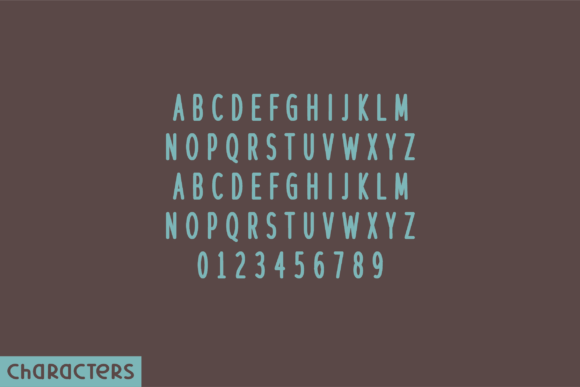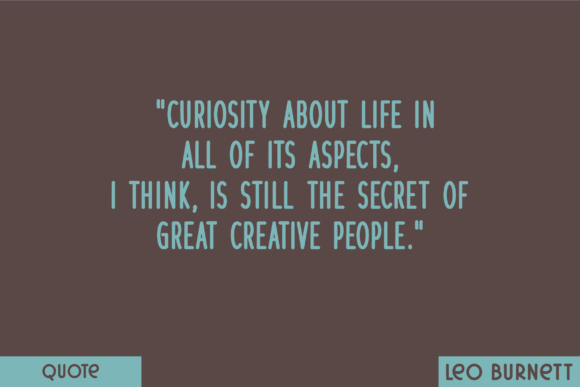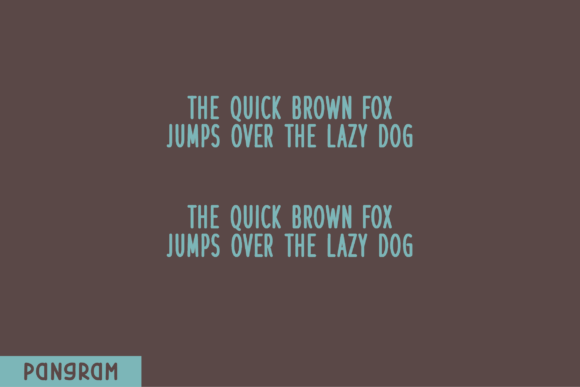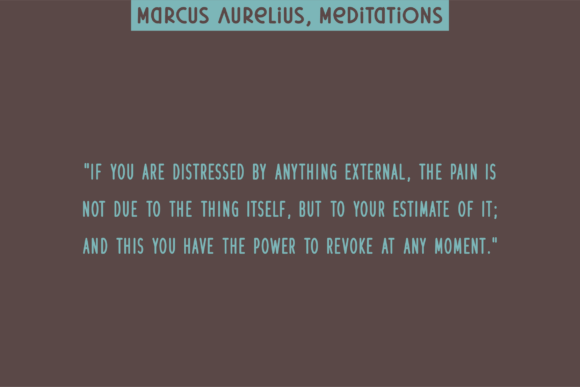
Introduction to Piraluna Font
As a designer, I’m sure you’ve had those moments when you’re brainstorming a creative project and the perfect font just seems to be missing. You know, that one font that makes your entire design pop, and elevates your message to a whole new level. For me, that moment came when I stumbled upon the Piraluna Font.
With its unique, handwritten style, the Piraluna Font is a game-changer for designers looking for a high-quality design resource. Its transparent background and natural, flowing lines make it perfect for quotes, notes, tees, and any product design. But what really sets it apart is its intricate details, carefully crafted to create a truly one-of-a-kind look.
Key Features of Piraluna Font
- Unique, stylish font with a transparent background, allowing for versatility in design applications.
- Features a large character set, including uppercase and lowercase letters, numbers, and special characters.
- Perfect for use in graphic design, web design, and digital art projects where a modern and elegant font is required.
Honest Review: Piraluna Font
I recently had the chance to work with the Piraluna Font, and I must say, it’s been a great addition to my design resource library. One thing that stands out is the unique design style, which lends itself perfectly to creative projects that need a touch of elegance.
- ✨ High-quality design: The Piraluna Font is meticulously crafted, with clean lines and a cohesive aesthetic.
- ✨ Transparent background: This feature makes it easy to work with the font on various backgrounds, giving designers the flexibility they need.
- ⚠️ Limited character set: The Piraluna Font currently only offers a basic set of characters, which may limit its use in more complex projects.
- ⚠️ Not suitable for body text: While the font is perfect for headings and titles, it may not be the best choice for body text due to its unique design style.
Overall, I’m impressed with the Piraluna Font and would definitely recommend it to designers working on creative projects. With its high-quality design and transparent background, it’s a valuable addition to any design resource library.
Piraluna Font
Tips for Getting the Most Out of Piraluna Font
Experiment with different font sizes and styles to create visual interest. Use the transparent background to create layered designs and achieve a high-quality look. With practice, you’ll unlock the full potential of this design resource.
Piraluna Font is perfect for creative projects, including posters, flyers, and presentations. Its unique style and transparent background make it ideal for layered designs and high-quality graphics.